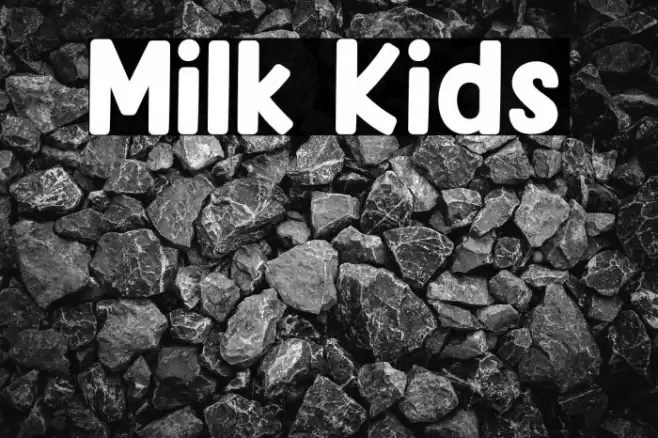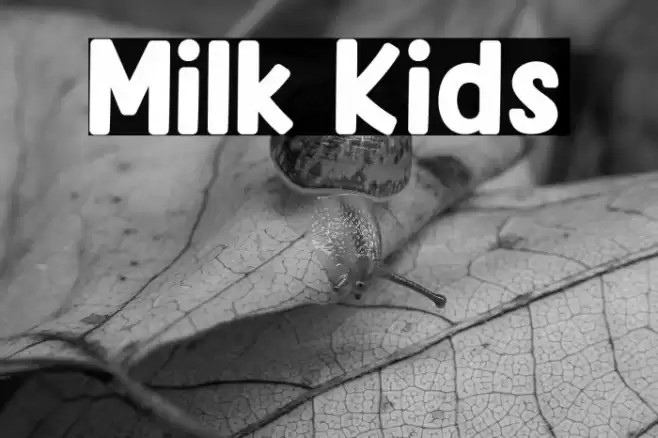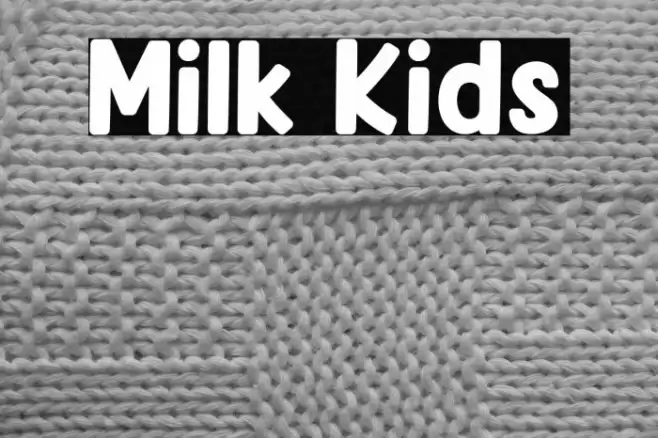
Milk Kids Font
Milk Kids Description
This playful and rounded font exudes a friendly and approachable vibe, making it ideal for children's content and informal designs. The characters are bold and slightly condensed, with a consistent stroke width that gives it a uniform appearance. The rounded edges and smooth curves enhance its whimsical nature, while the clear and legible letterforms ensure readability. The font includes a full set of uppercase and lowercase letters, numbers, and a variety of special characters, making it versatile for various design needs. Its cheerful and inviting style is perfect for projects that aim to convey warmth and fun.
A playful, rounded font with bold, uniform strokes and a friendly vibe from Cartoon fonts.
- Font: Milk Kids
- Proposed Projects: Ideal for children's books, educational materials, playful branding, and informal invitations.
- Width: Condensed
- Overall Style: Playful
- Use Case: Headlines, Logos, Children's content